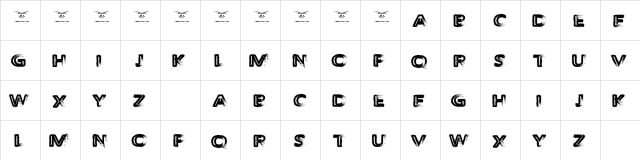
The Decompozed Regular
| Foundry | Fonts by GKDN |
| Designer | Chris Vile |
Design Context for The Decompozed Typeface
The Decompozed is a composed and adaptable typeface that performs quietly and consistently across a wide range of design contexts.